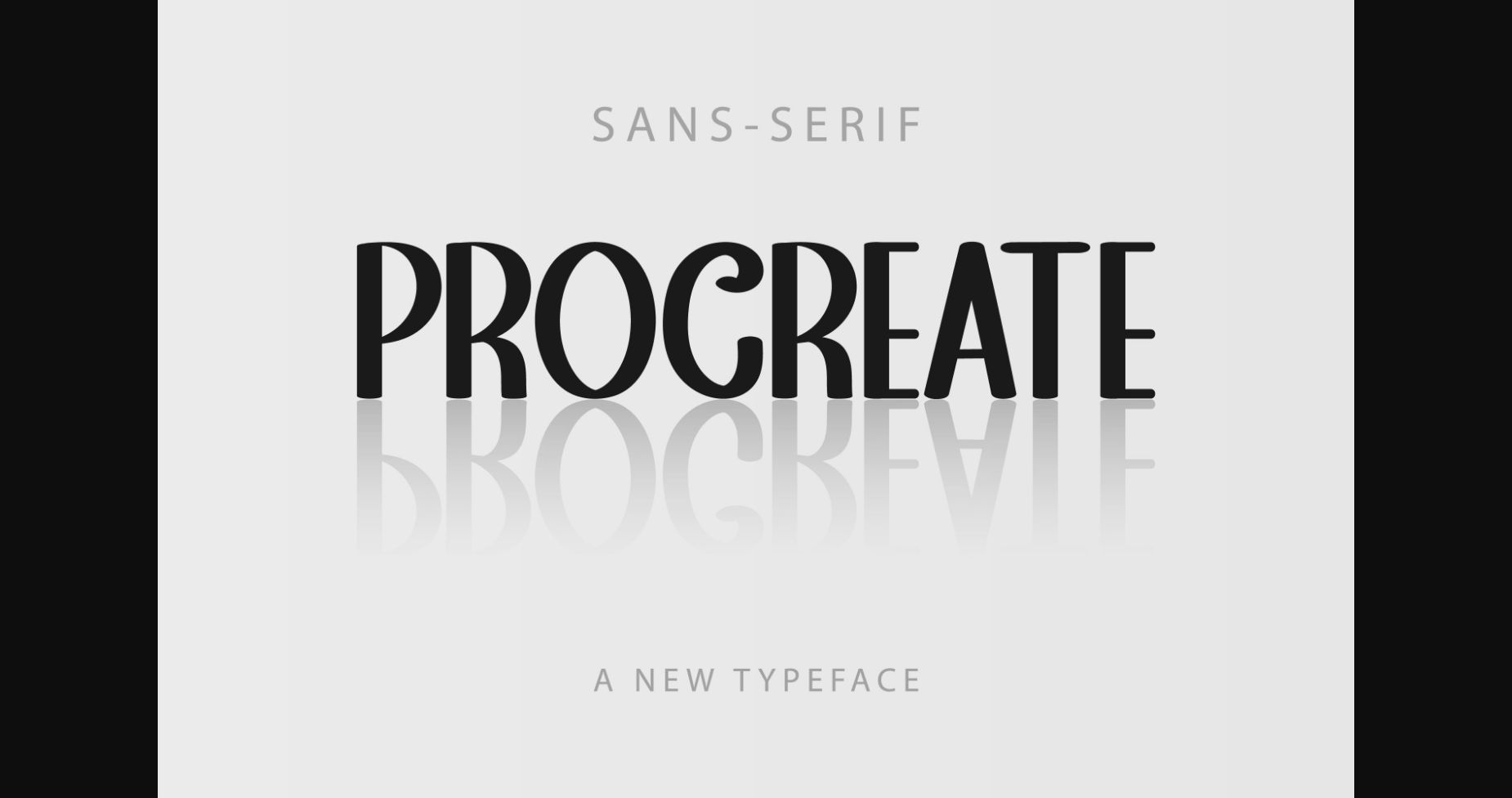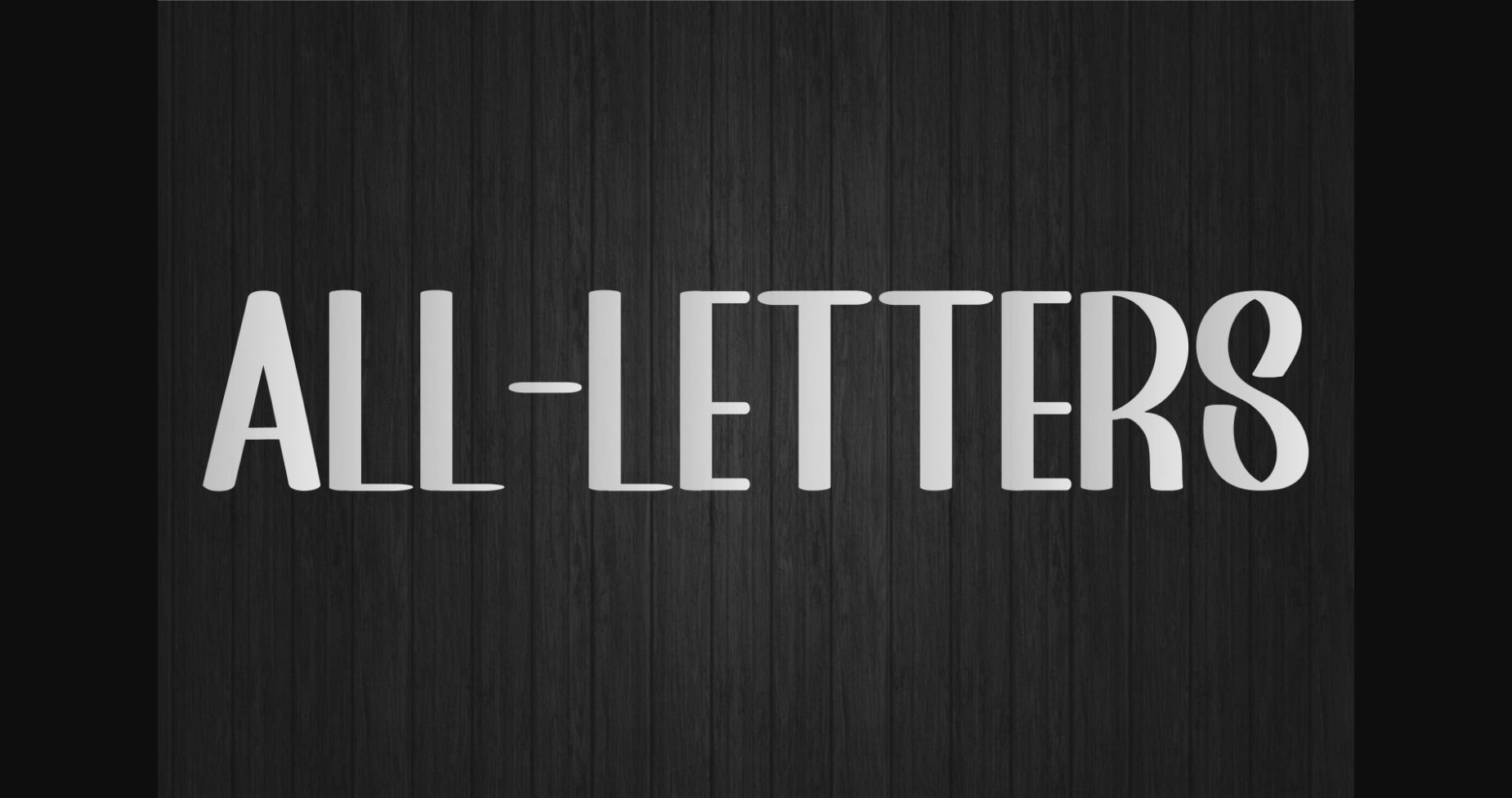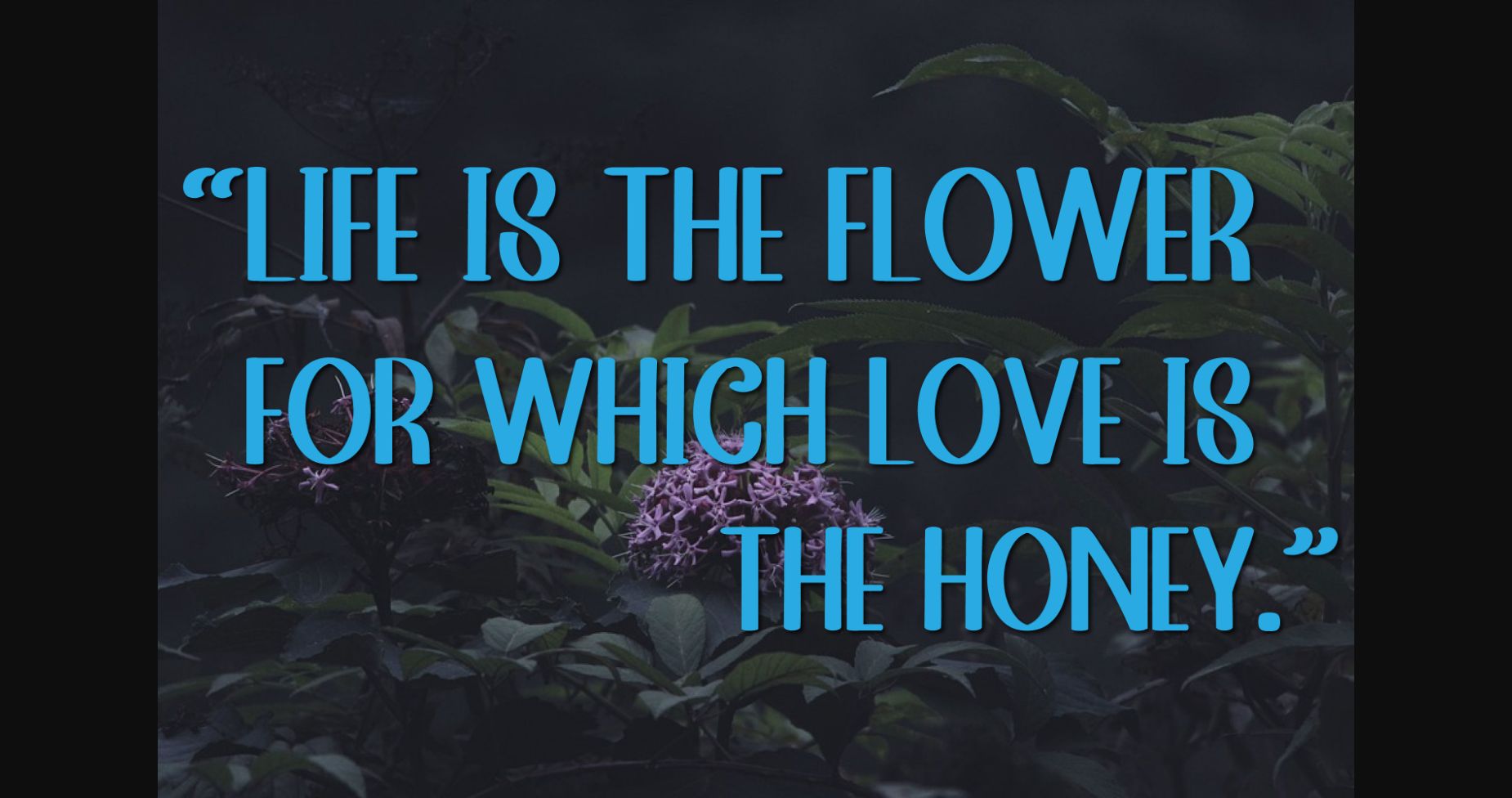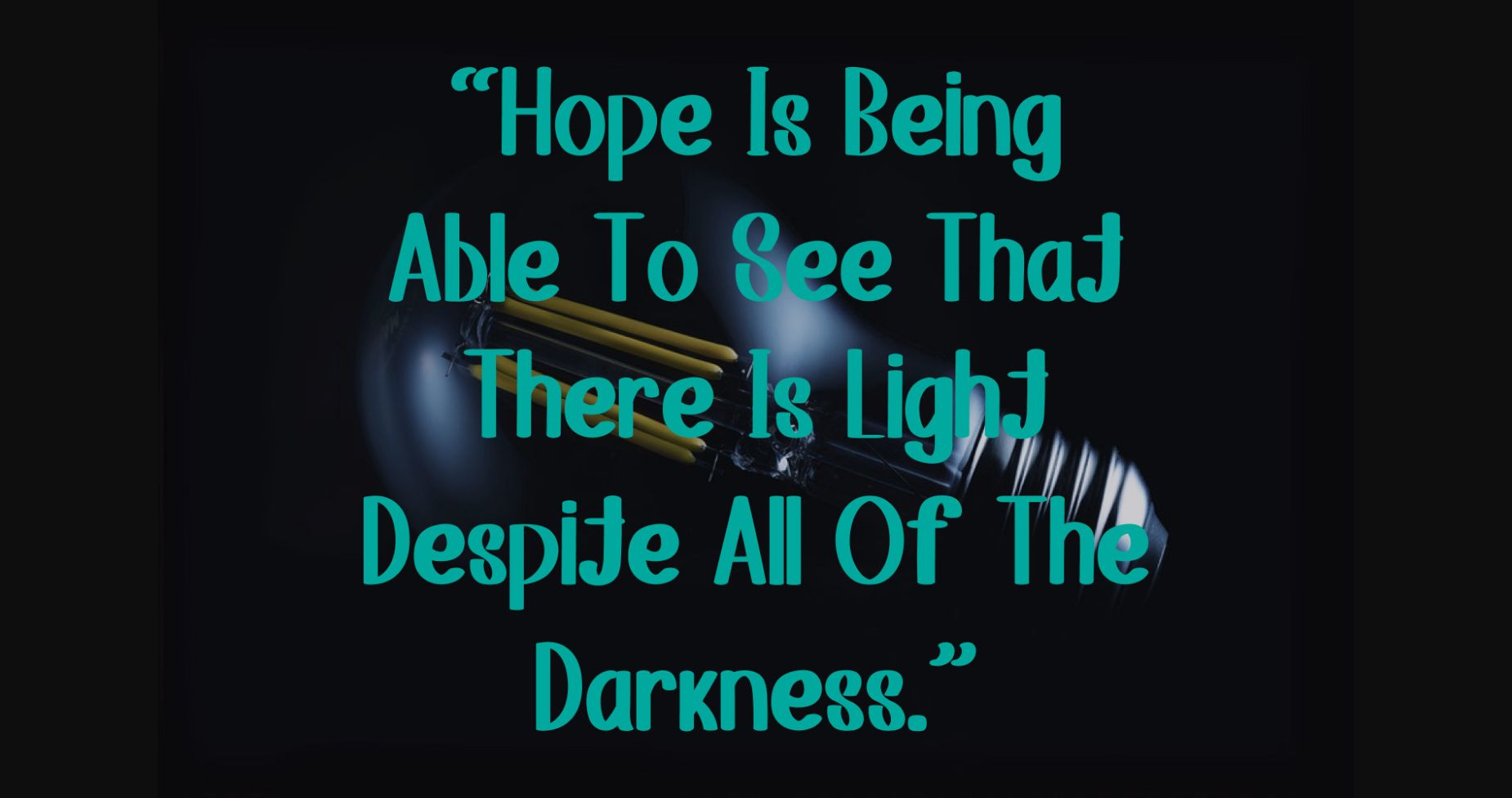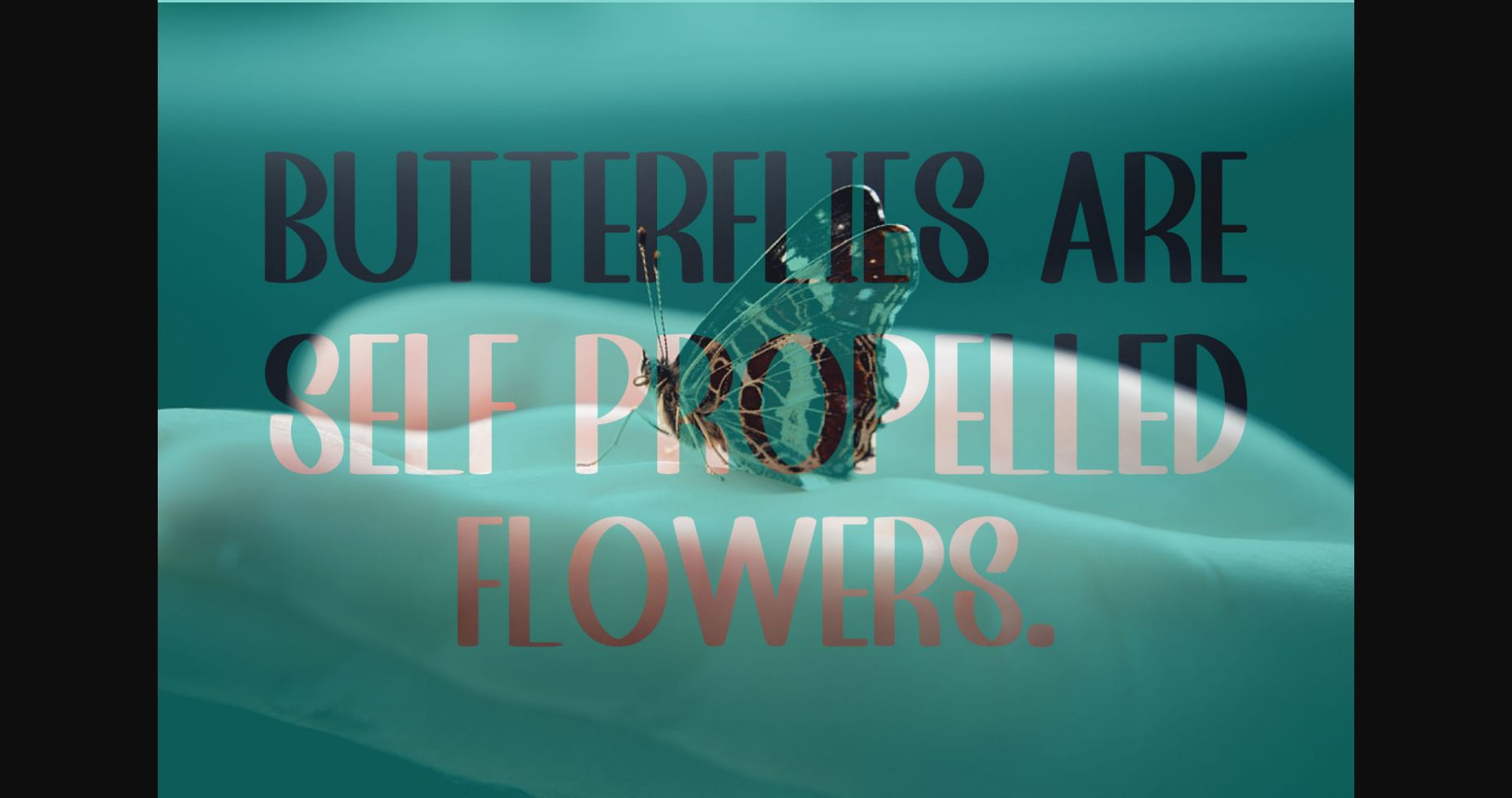
Procreate Font
About Procreate Font
Procreate is a fun and quirky all-caps serif font. Add it to your crafty ideas, and enjoy the results! It will look great -on cards, promotional ads, social media posts, product packaging, and others.